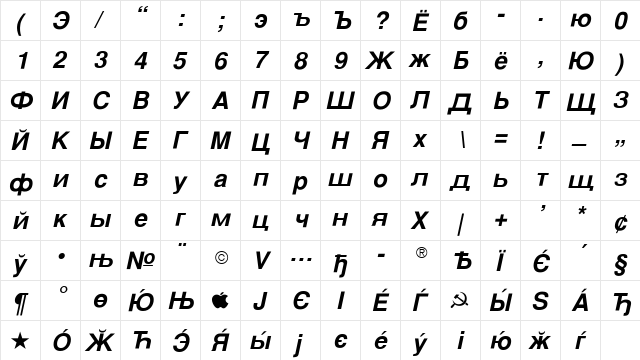
SvobodaFLF-BoldOblique Regular Font Preview
Design Context for SvobodaFLF-BoldOblique Typeface
SvobodaFLF-BoldOblique is a composed and adaptable typeface that performs quietly and consistently across a wide range of design contexts. Its italic angle brings a sense of urgency and motion to the letterforms. Its bold stroke weight gives it real presence on the page.
Pro Tip: Try SvobodaFLF-BoldOblique for annotation and caption copy alongside an upright companion — the contrast in angle creates a dynamic but ordered typographic system.